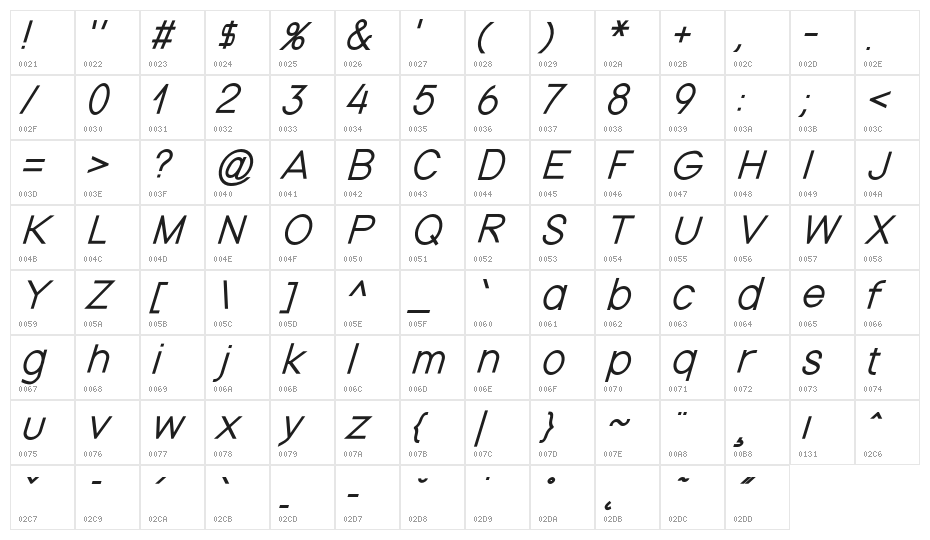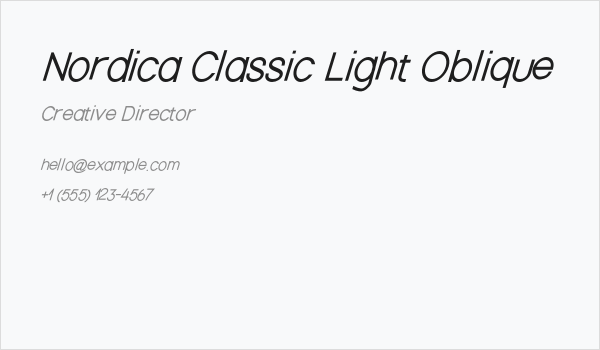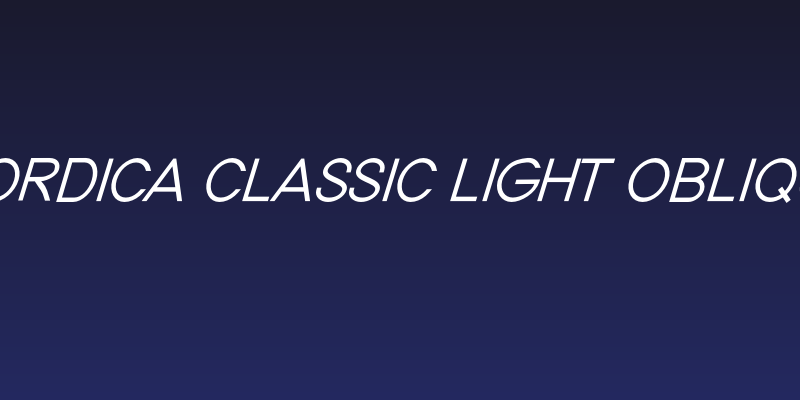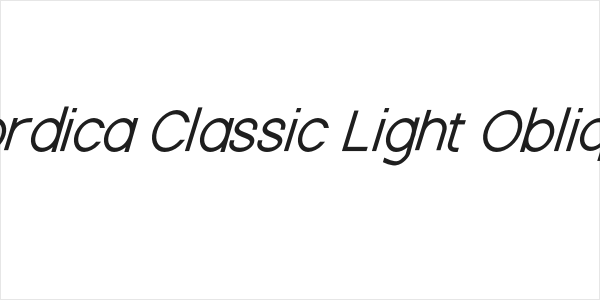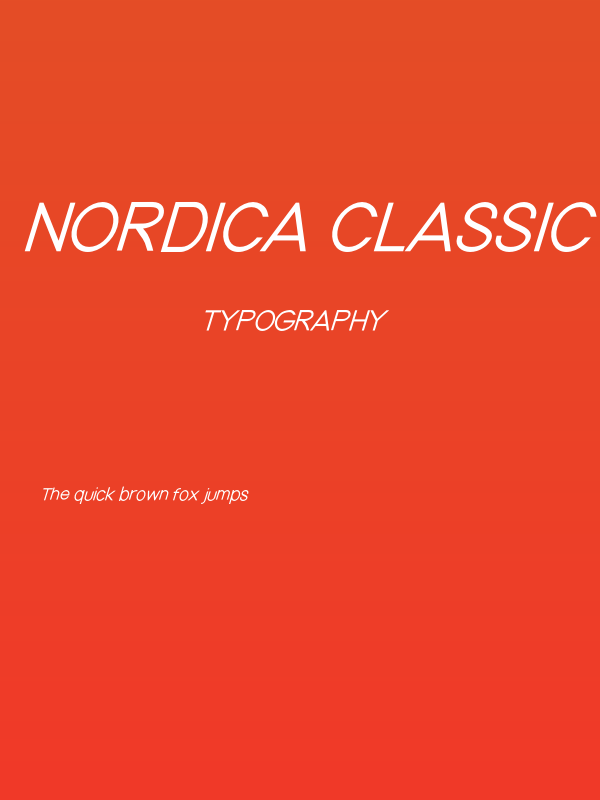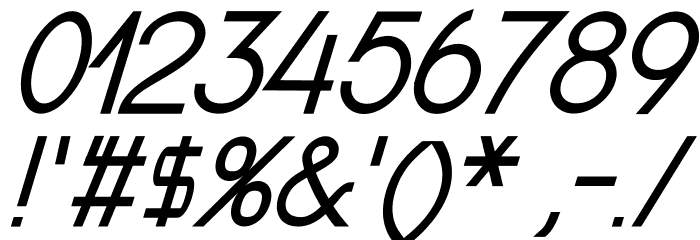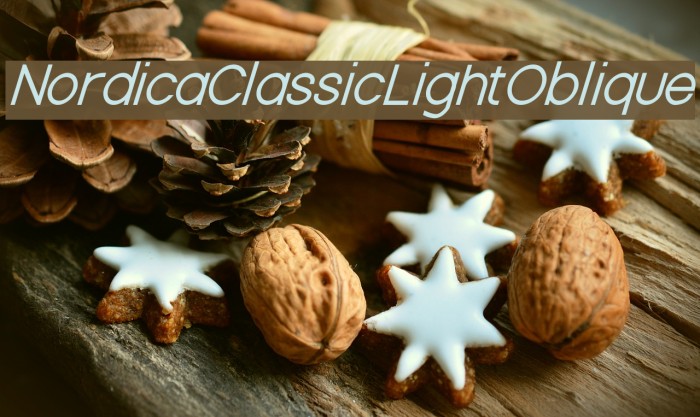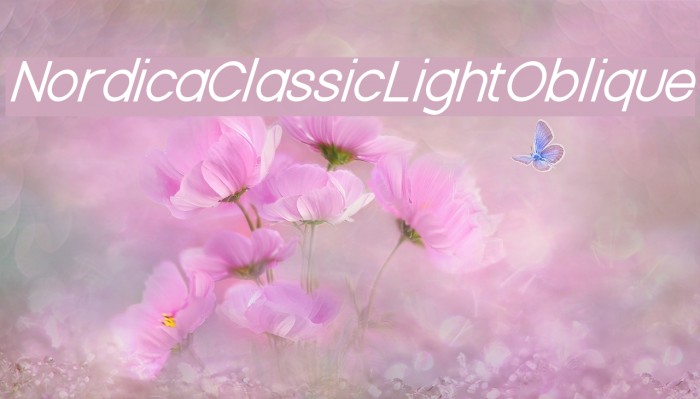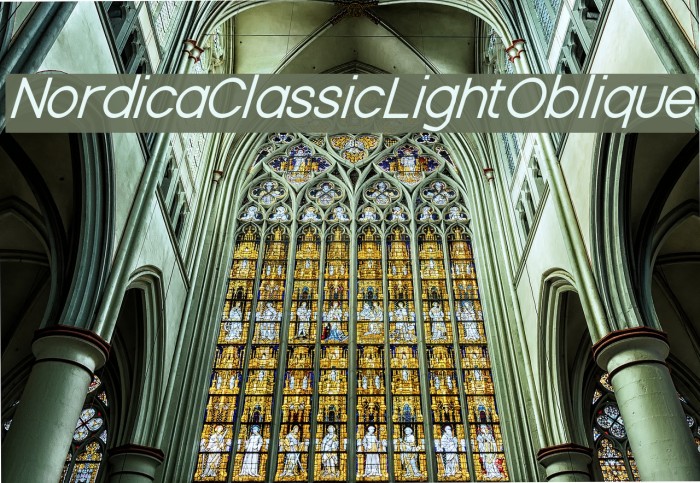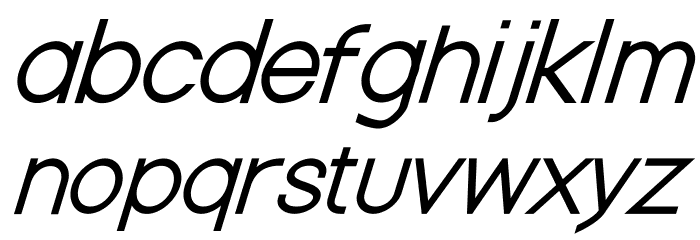
Nordica Classic Light Oblique Font
Nordica Classic Light Oblique Description
This font features a sleek and modern design with a slight oblique slant, giving it a dynamic and forward-moving appearance. The characters are crafted with precision, showcasing a light weight that adds elegance and readability. The sans-serif style contributes to its clean and uncluttered look, making it versatile for various design applications. The spacing between characters is normal, ensuring clarity and legibility. The font's low contrast in stroke thickness provides a smooth and consistent visual flow, suitable for both digital and print media. Its contemporary style makes it ideal for projects that require a sophisticated yet approachable aesthetic.
| Proposed Projects | Ideal for branding, advertising, web design, and editorial projects. |